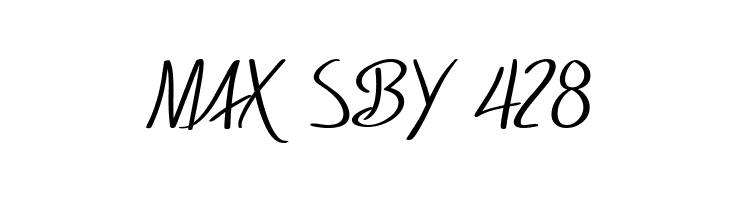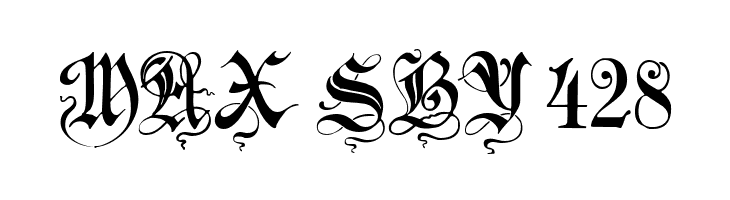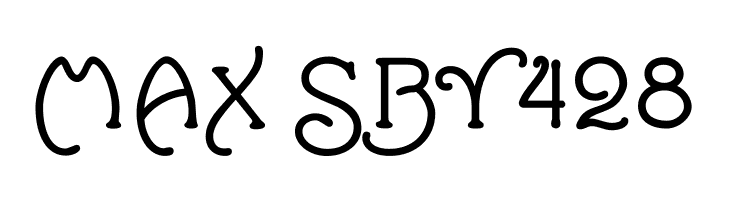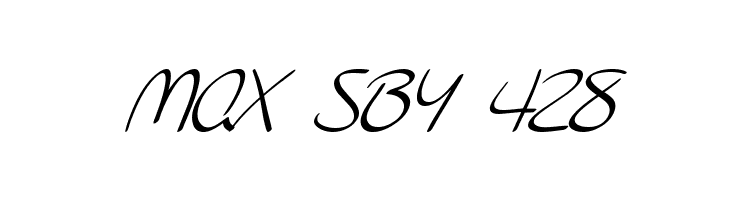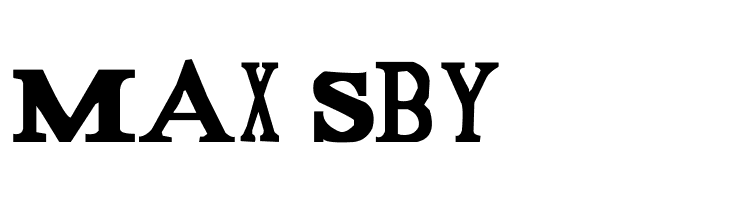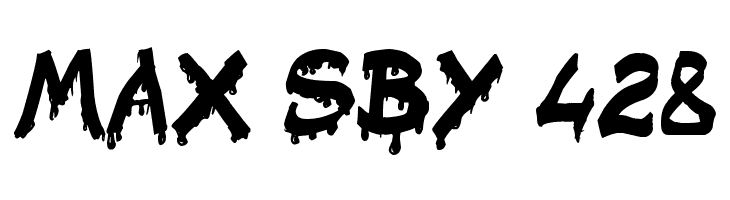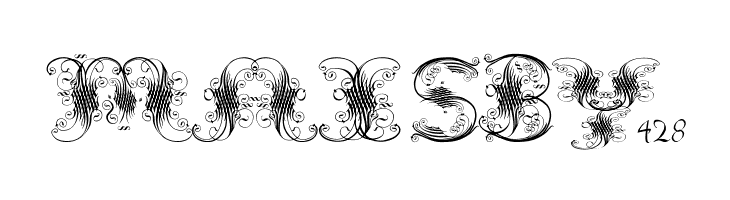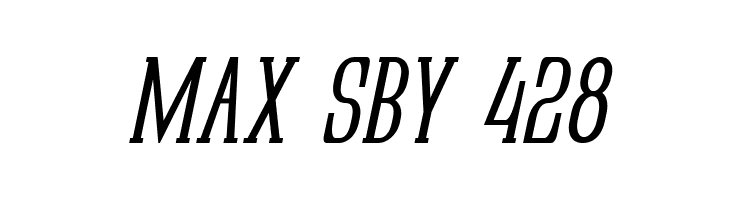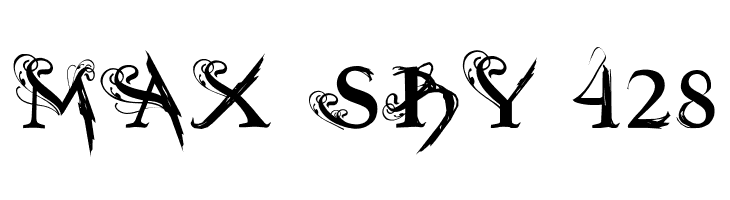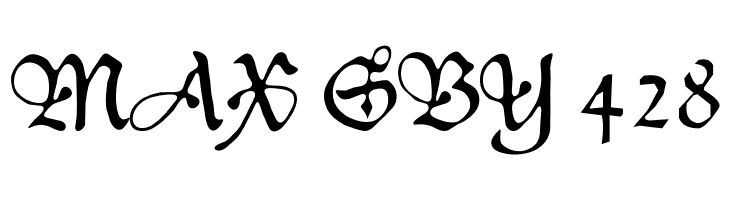
An elegant and decorative font with cursive-like uppercase and stylish lowercase letters.
An ultra-condensed, modern font with thin, elegant lines and a minimalist aesthetic.
An artistic, left-leaning font with dramatic, elongated strokes and ornate details.
A rustic, hand-drawn font with a driftwood texture and bold, organic strokes.
An artistic and decorative font with coiled, medieval-inspired elements.
An ornate and decorative font with intricate swirls and flourishes.
A bold, brushstroke font with a dynamic, calligraphic style.
A lively and flowing script font with elegant, sweeping curves.
An ornate and decorative font with a classic calligraphic style.
An elegant, flowing script font with a dynamic italic slant.
A bold, vintage-style font with exaggerated serifs and dynamic strokes.
A narrow, italicized font with medium contrast and a modern style.
A classic blackletter font with ornate, decorative details.
A dynamic, calligraphic font with sweeping curves and sharp terminals.
A whimsical and artistic font with elaborate decorative swirls.
An ornate, whimsical font with intricate swirls and flourishes.